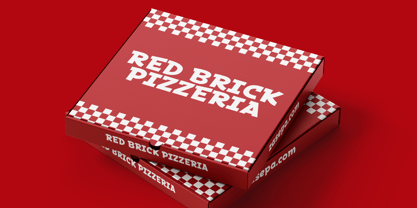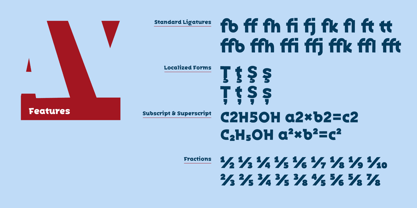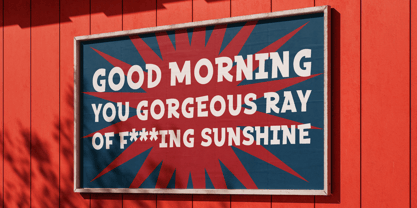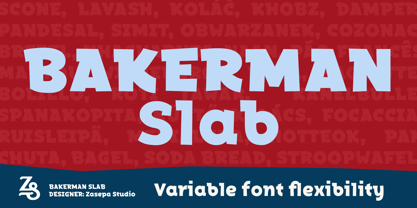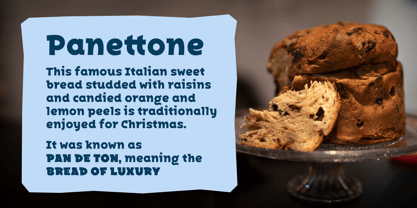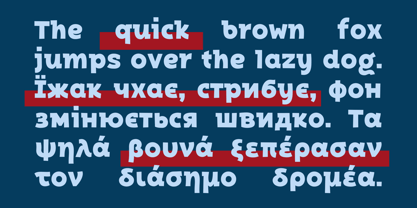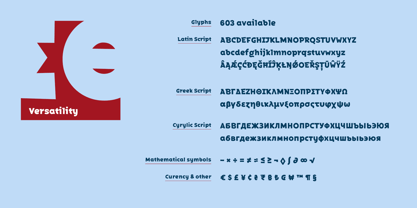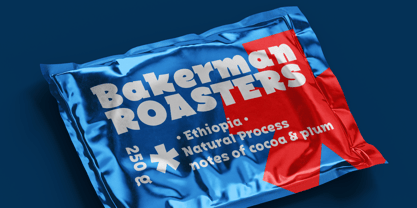
Bakerman Slab
by Zasepa Studio
The Bakerman Slab Font Family was designed by Hubert Zasepa and published by Zasepa Studio. Bakerman Slab contains 7 styles and family package options. More about this family
Bakerman Slab adds a subtle slab serif to the bold, hand-drawn style of Bakerman Sans. A single, minimal serif accent gives each glyph a unique, expressive twist while preserving the organic, marker-inspired flow. Designed in multiple widths, it combines bold weight with handcrafted warmth. Perfect for logos, packaging, headlines, posters, and craft branding, Bakerman Slab offers a distinctive voice that stands out while remaining approachable and playful.
Designers: Hubert Zasepa
Foundry: Zasepa Studio